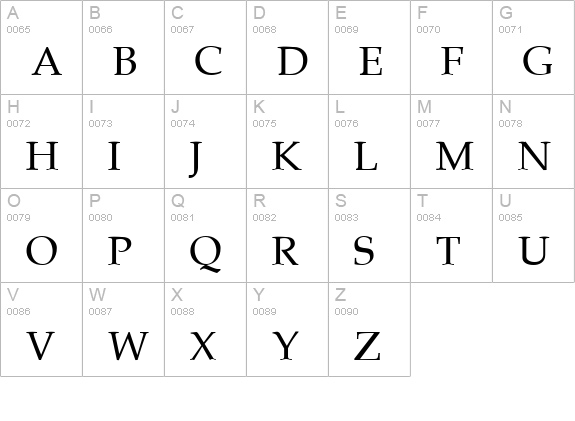
Palladia Regular is the standard, neutral variant in the Palladia typeface family \xE2\x80\x94 well suited to general body text, paragraphs, and standard typographic work.
Palladia Regular is a timeless and versatile font that effortlessly blends elegance with legibility. Its classic yet modern design makes it perfect for a wide range of creative projects, from branding and packaging to editorial design and website headers. This beautiful font features clean lines and subtly rounded letterforms, creating a sense of harmony and balance. The generous x-height and open counters ensure excellent readability, even at smaller sizes, making it ideal for body text as well as headlines. One of the best things about Palladia Regular is that it is available for free. Yes, you read that right! You can freely download this stunning font at FontsMarket.com, a trusted source for high-quality fonts. Whether you're a professional designer or a hobbyist, this font will give your work a touch of sophistication and professionalism. Palladia Regular is a true workhorse font that can seamlessly adapt to any design concept or style. Its versatility allows it to be used in a variety of projects, from elegant wedding invitations to sleek corporate presentations. With its wide range of weights, you can easily create visual hierarchy and add emphasis to your designs. So why wait? Enhance your design projects with the timeless beauty of Palladia Regular. Download it for free today at FontsMarket.com and let your creativity soar.